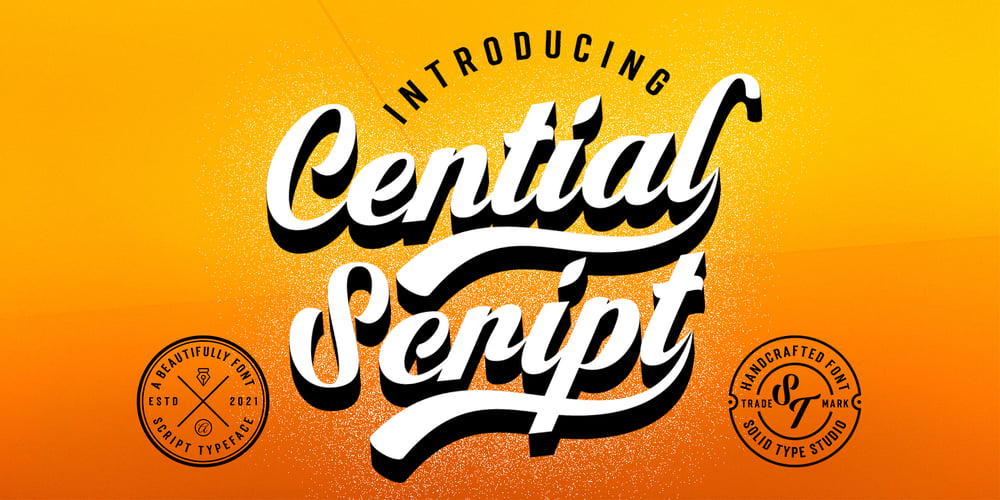
Cential Script Font Family was designed by Riski Firmana and published by Solidtype. Cential Script contains 1 styles and family package options. Cential Script is highly legible font, get touch of a bold, classic and fun vintage script font, Opentype features with stylistic alternates. Can be used for various purposes. such as posters, t-shirt, signage, logos, news, badges etc. International support for most Western Languages is included.